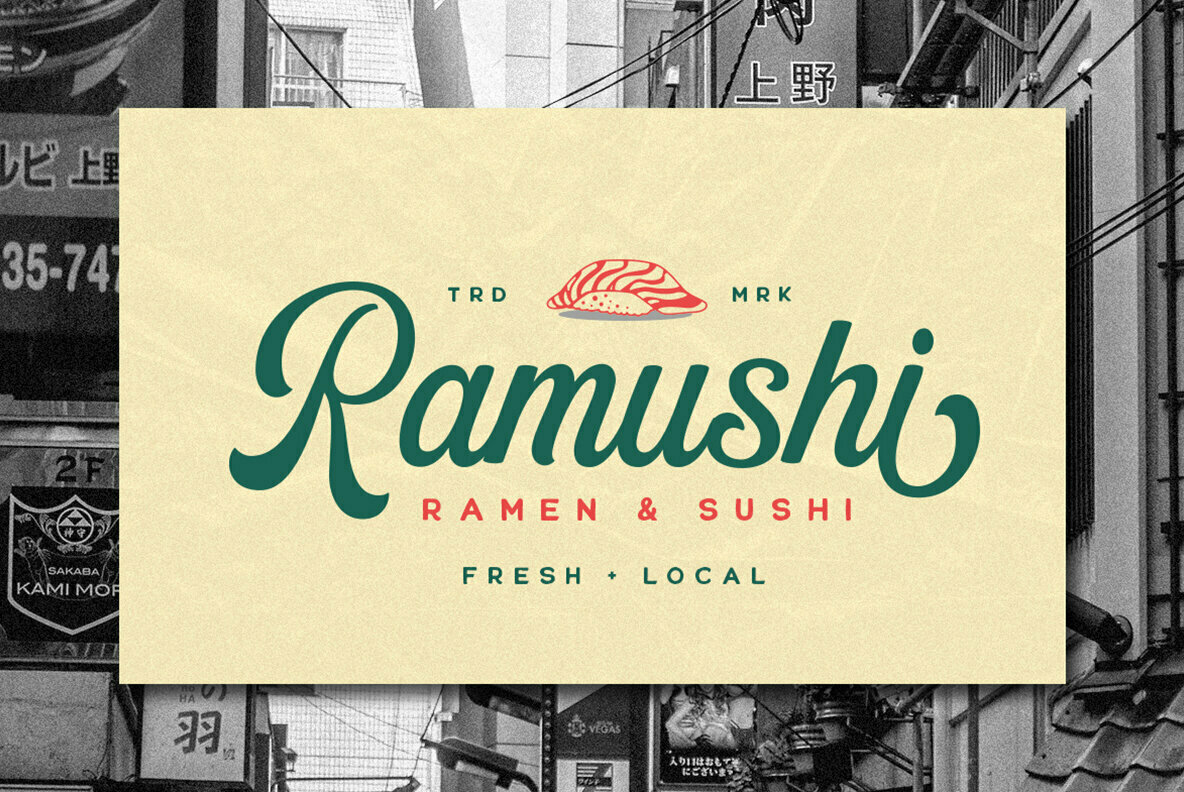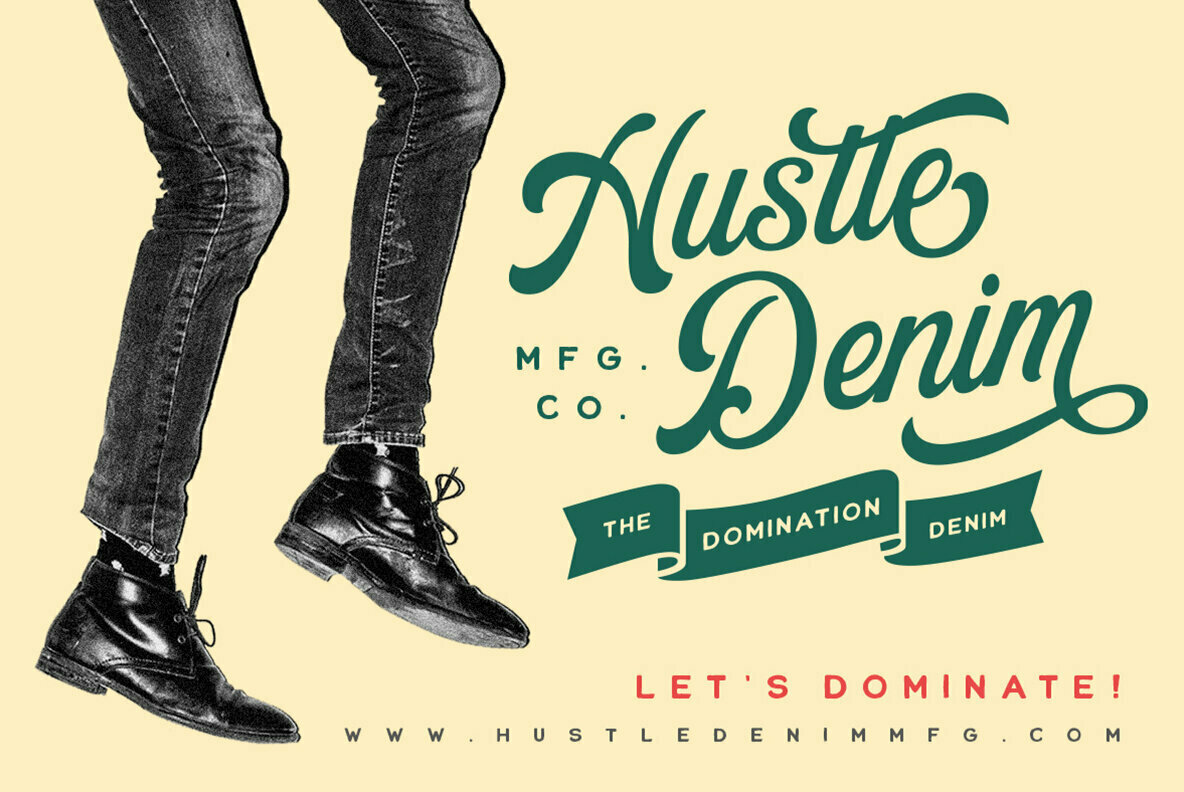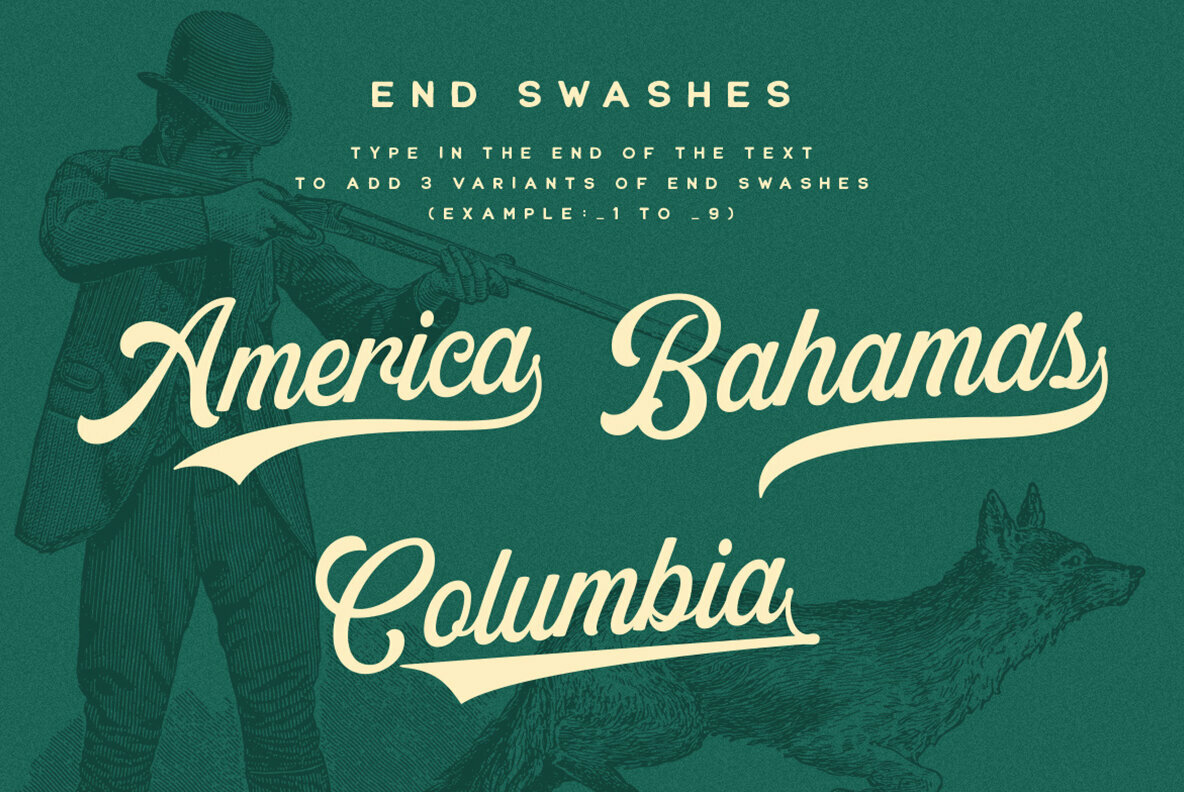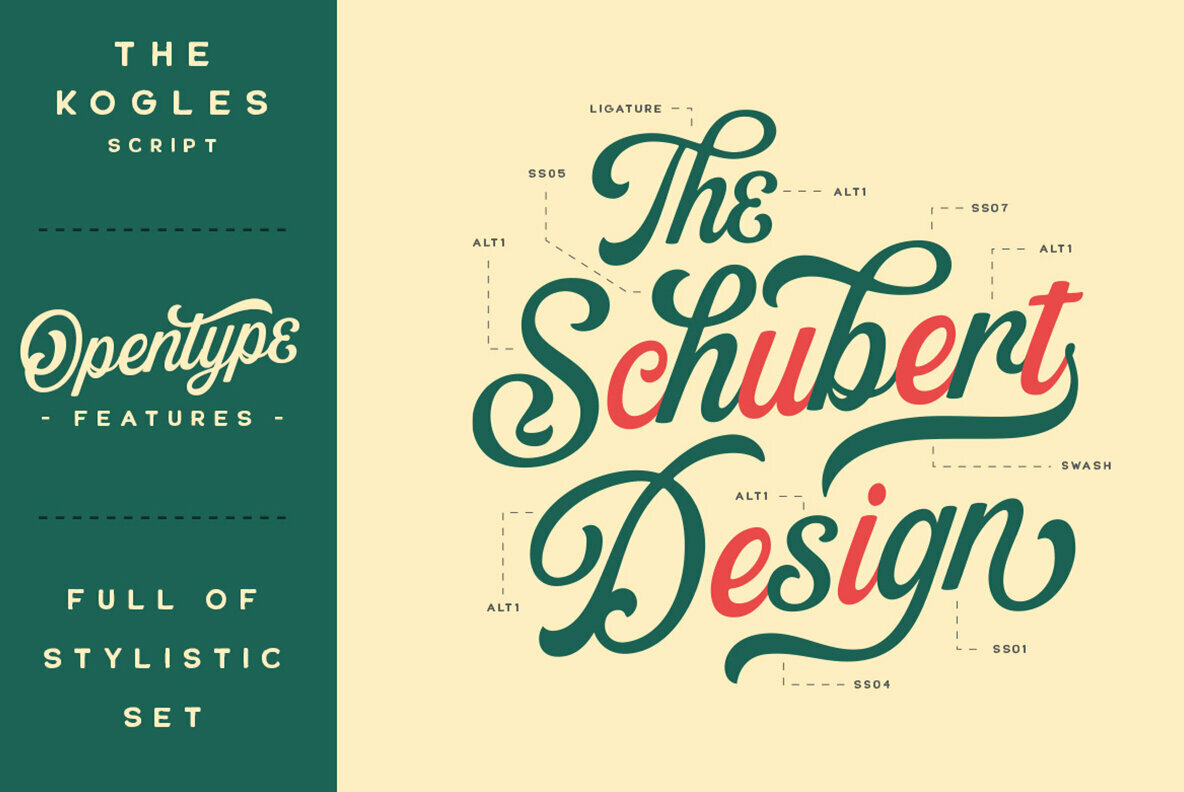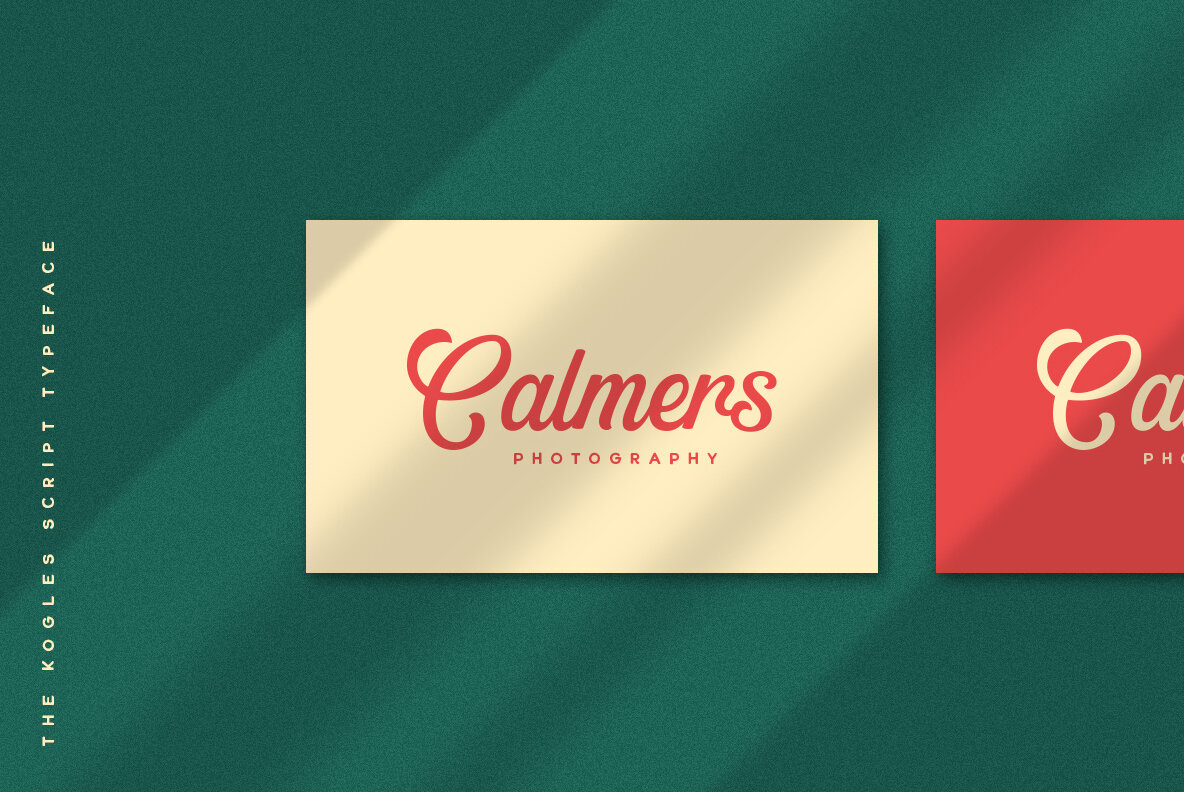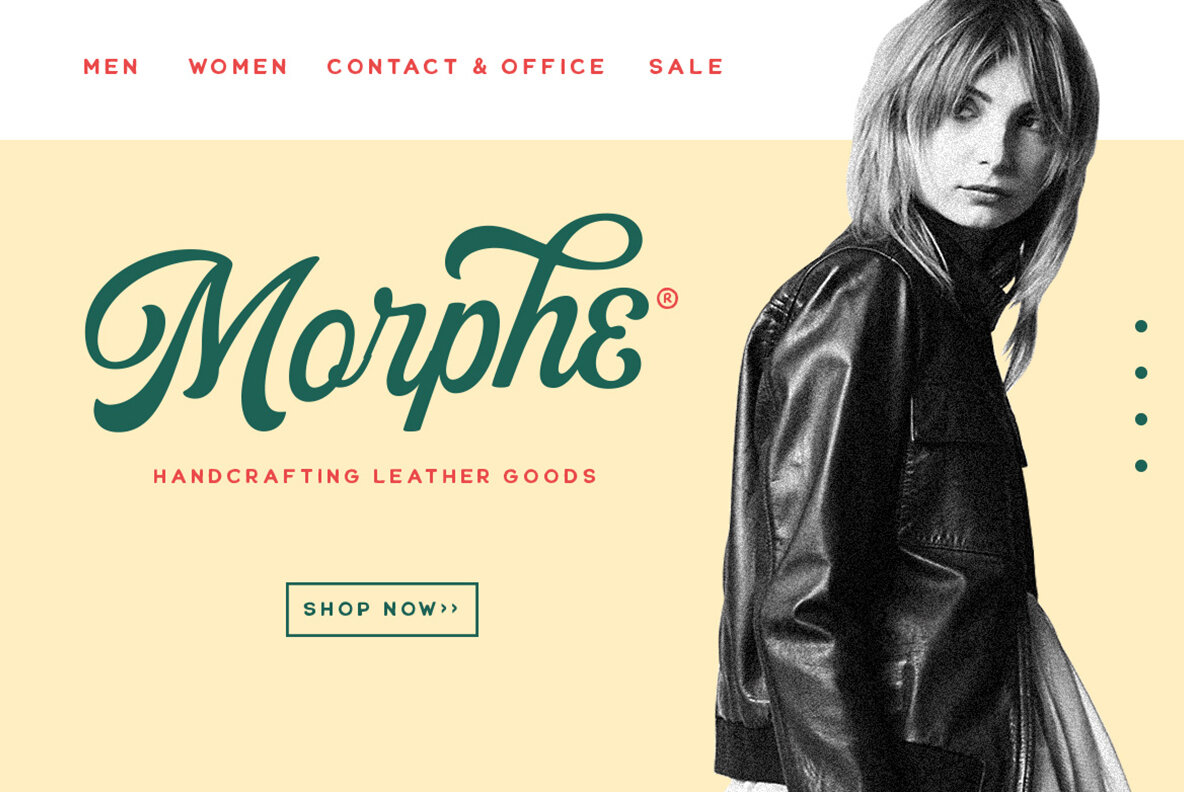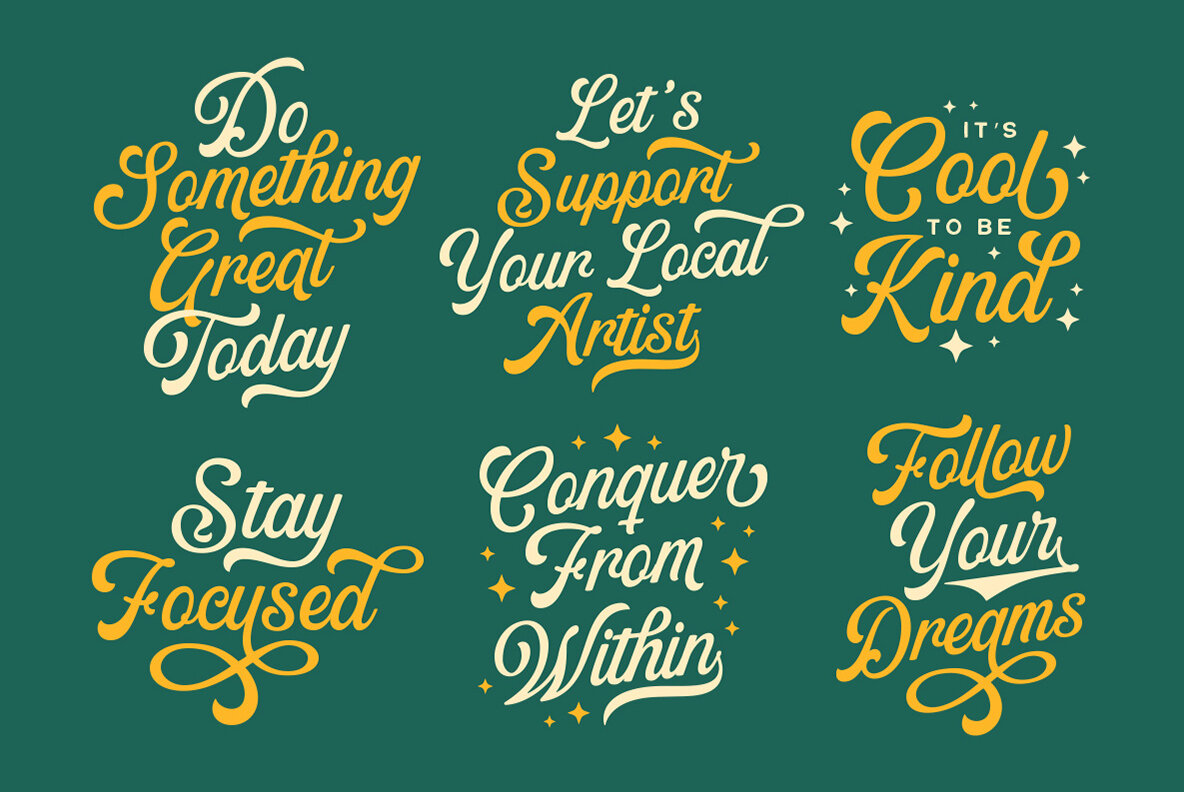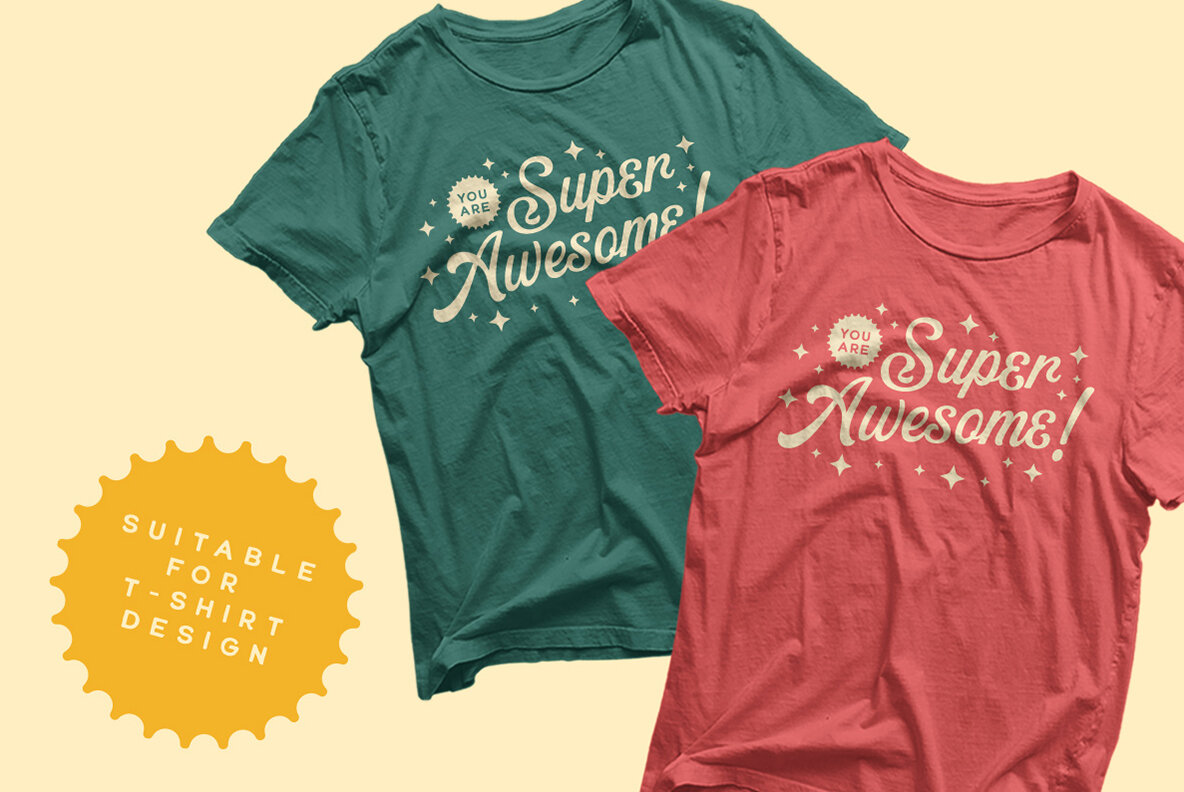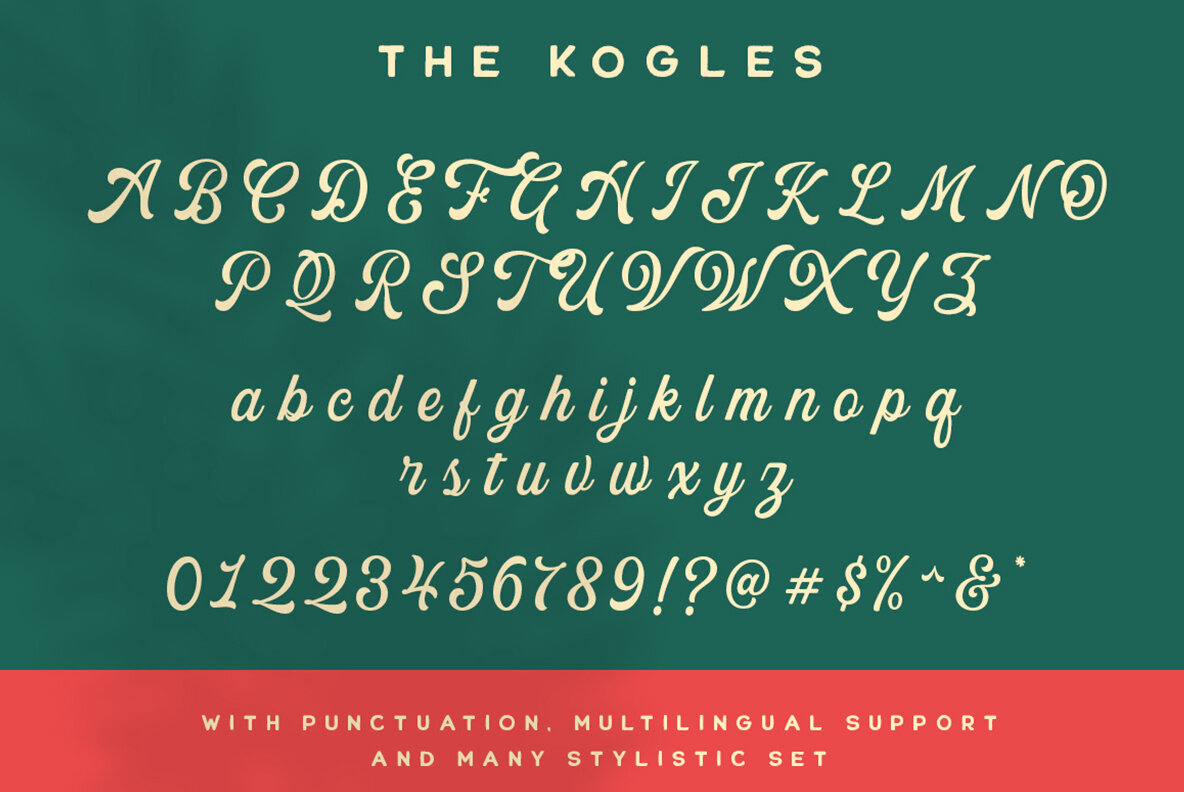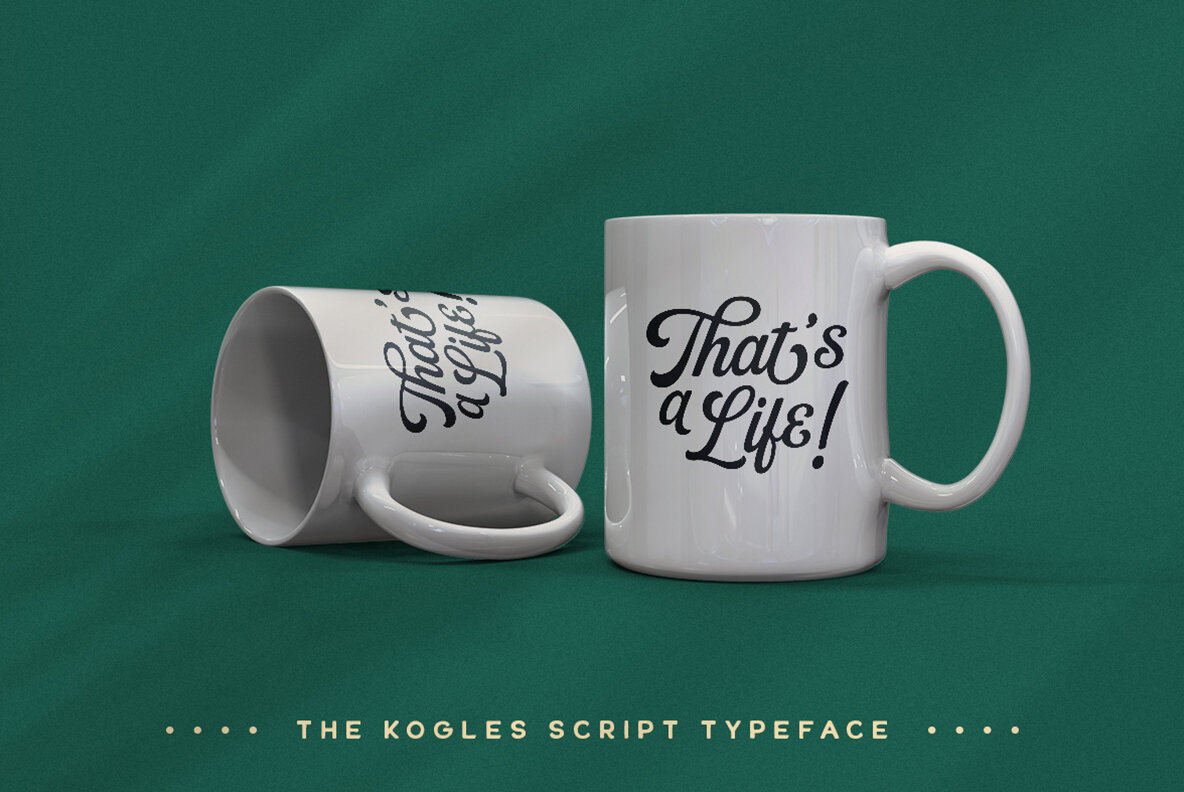
The Kogles Script Font
The Kogles Script
Infused with a nostalgic essence, The Kogles Script offers a distinct retro charm. This typeface was crafted to beautifully complement logos, invitations, and other formal mediums. Whether gracing the pages of magazines and books, or adding flair to wedding cards and packaging, it maintains a sophisticated appeal.The Kogles Script: Retro-Inspired Elegance